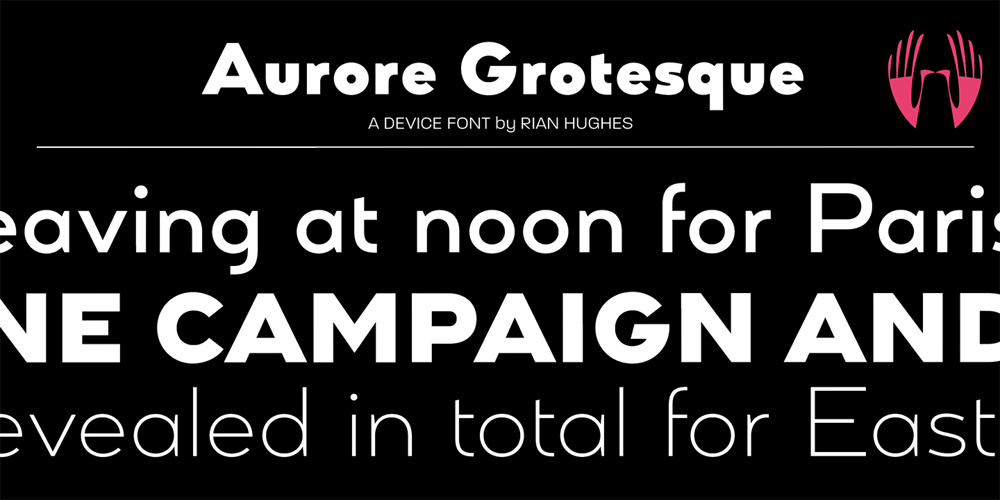
Aurore Grotesque Font Family was designed by Rian Hughes and published by Device. Aurore Grotesque contains 17 styles and family package options. Aurore Grotesque is an elegant, robust geometric sans for both text and headline. It has a classic European heritage that references the posters of Cassandre and the modern sans of Paul Renner or Karl Gustav Möhring, but is entirely new and does not slavishly follow any historical reference. The low lower-case x-height gives it character and definition in running text, while the capitals-only Titling variant lends weight and punch to headlines. The full range of weights, each with matching italics, make it perfect for brochures, magazines, advertising, web, app and corporate uses. Includes lining, old-style and tabular numerals, arrows, stylised geometric alternates, and a full international character set.